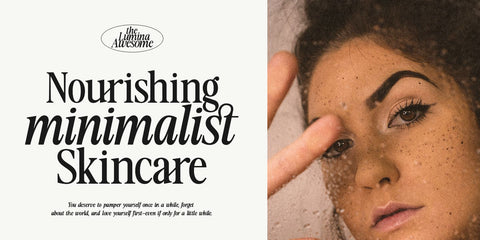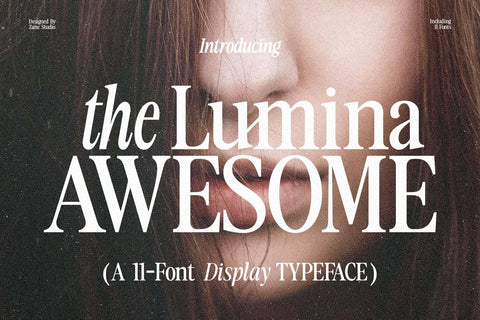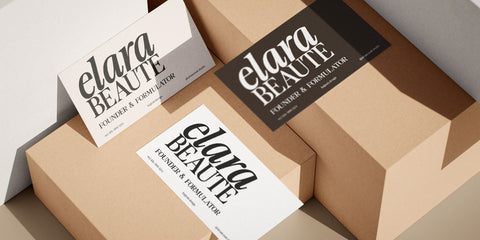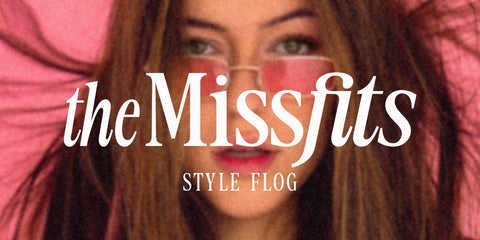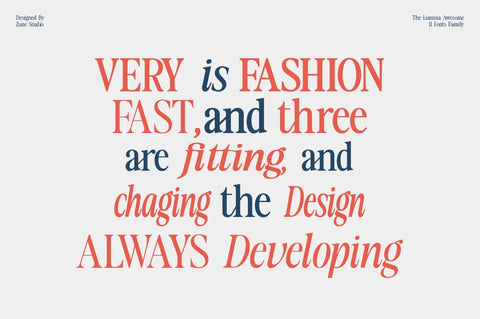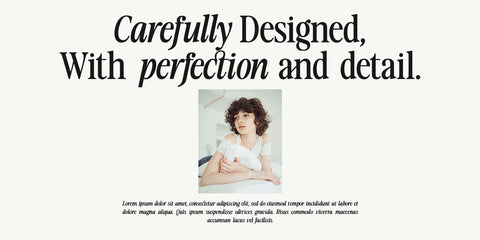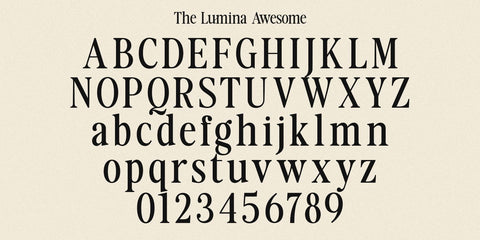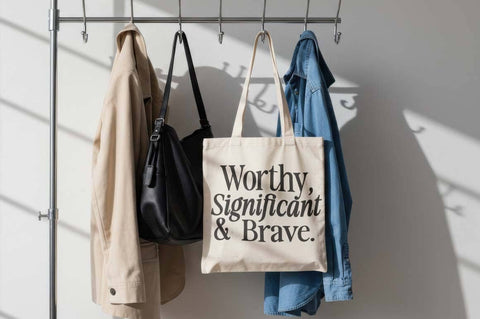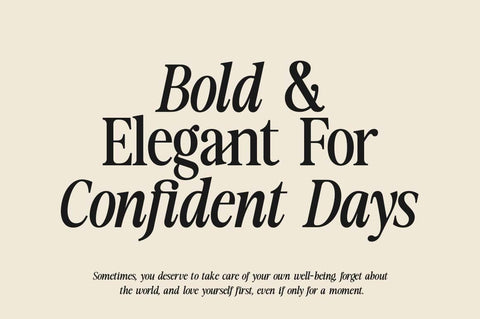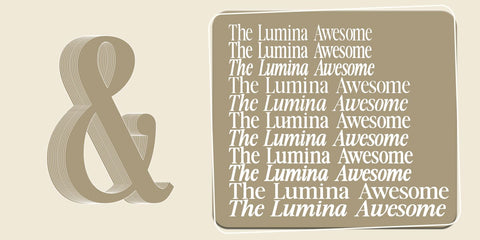
The Lumina Awesome
The Lumina Awesome is a modern vintage serif font with a sophisticated and timeless style. Its beautifully crafted letterforms bring a luxurious and elegant touch to any design project.
This font has a distinct, charming character and is highly versatile for all kinds of creative work. It is perfect for branding, logo design, apparel styling, packaging, magazine headlines, advertisements, apparel designs, greeting cards, and so much more.